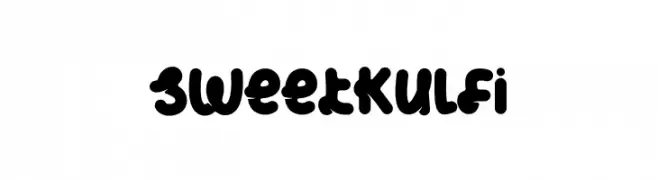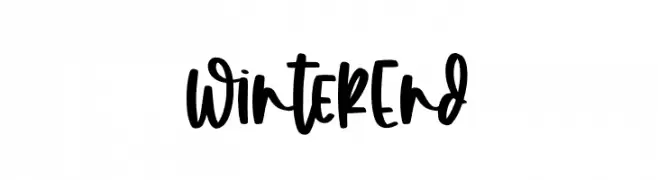
A playful font with characters enclosed in circles topped with paw prints.
A playful, bold typeface with rounded, thick strokes and a whimsical, hand-drawn style.
A bold, playful font with exaggerated curves and a whimsical style.
A playful, bold font with rounded, bubbly characters ideal for creative projects.
A bold, expressive handwritten font with a modern, dynamic style.
A playful, hand-drawn outline font with a whimsical and artistic style.
A bold, playful font with a hand-drawn, whimsical style.
A bold, playful handwritten font with flowing strokes and a modern touch.